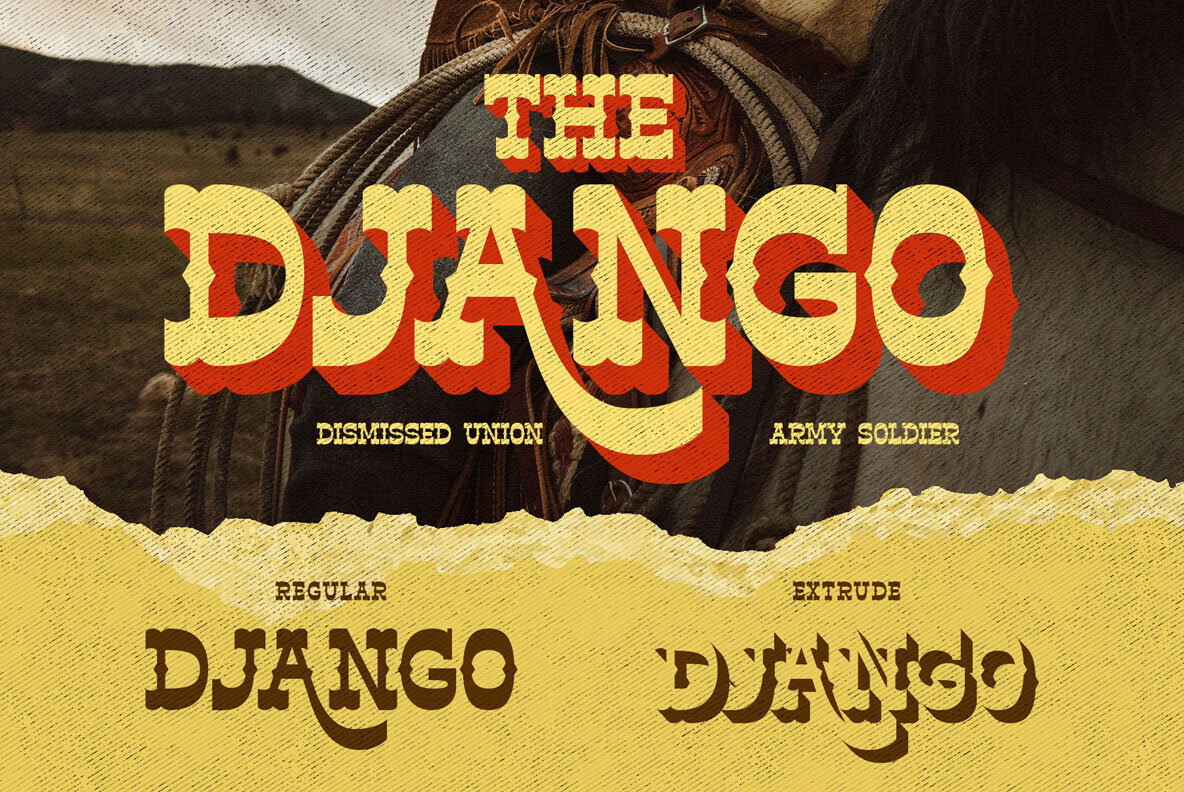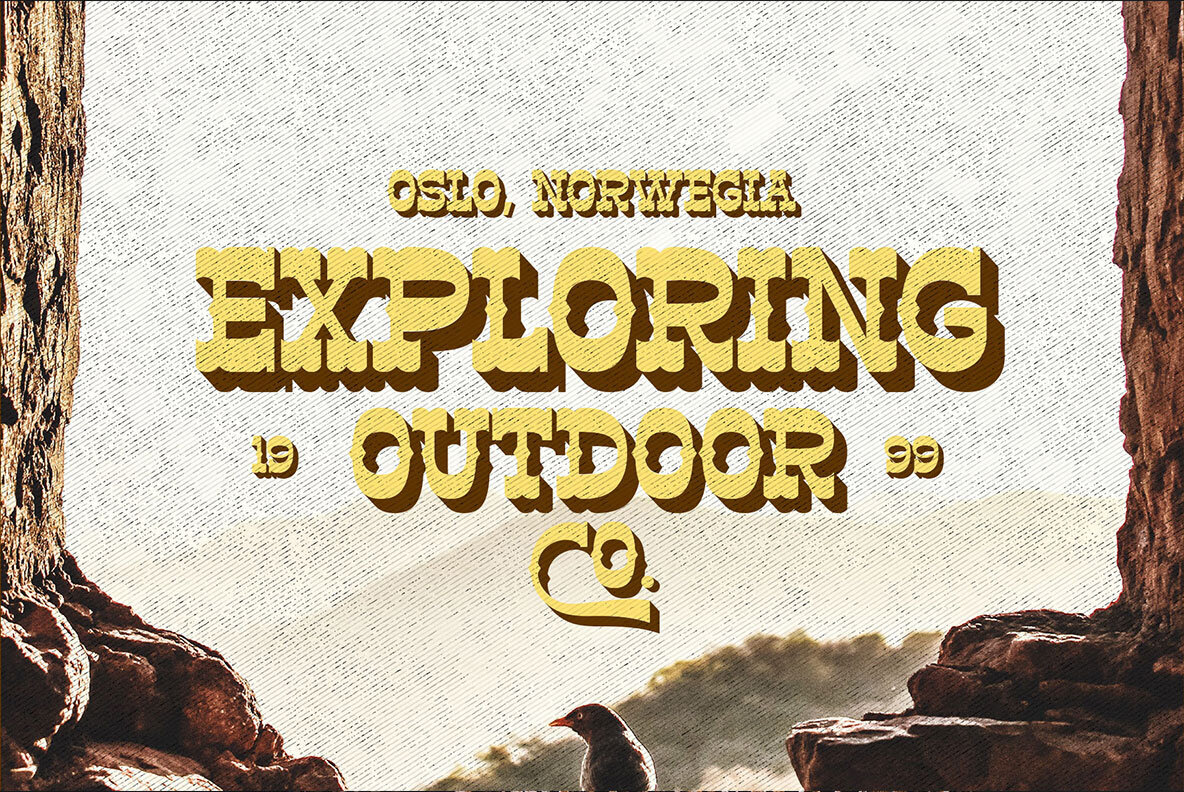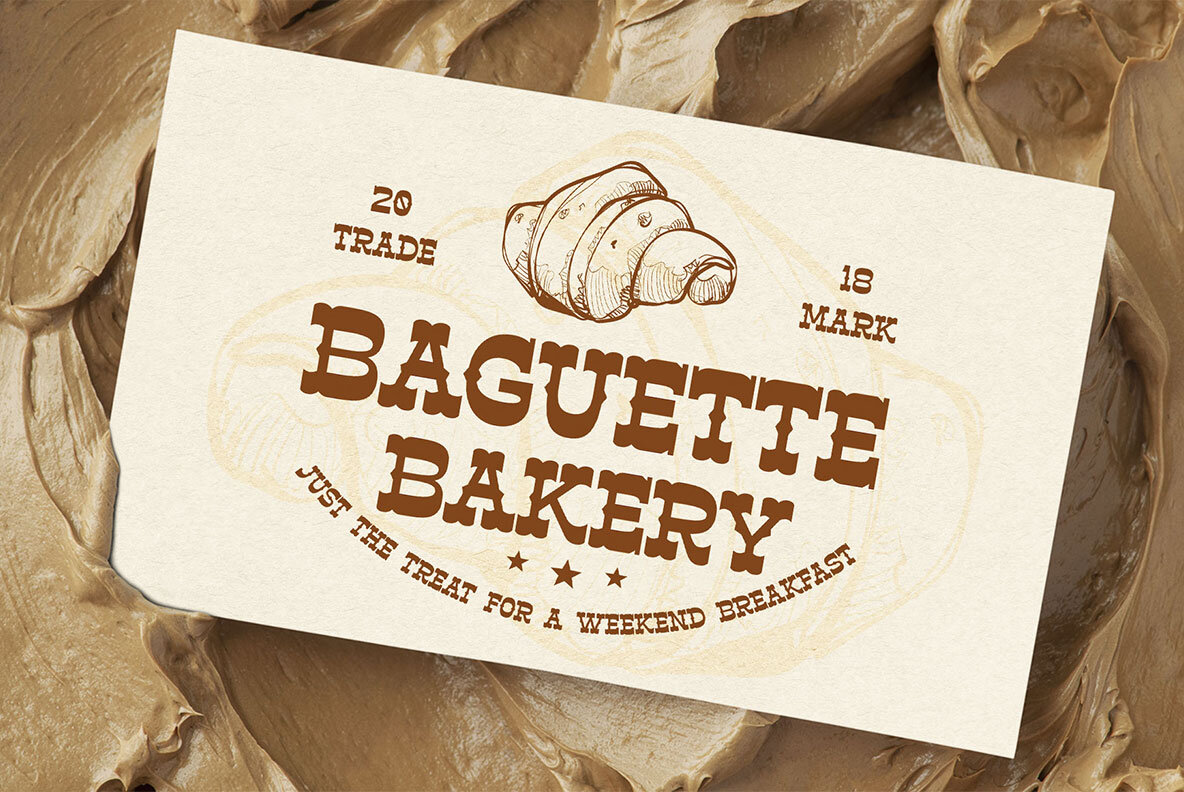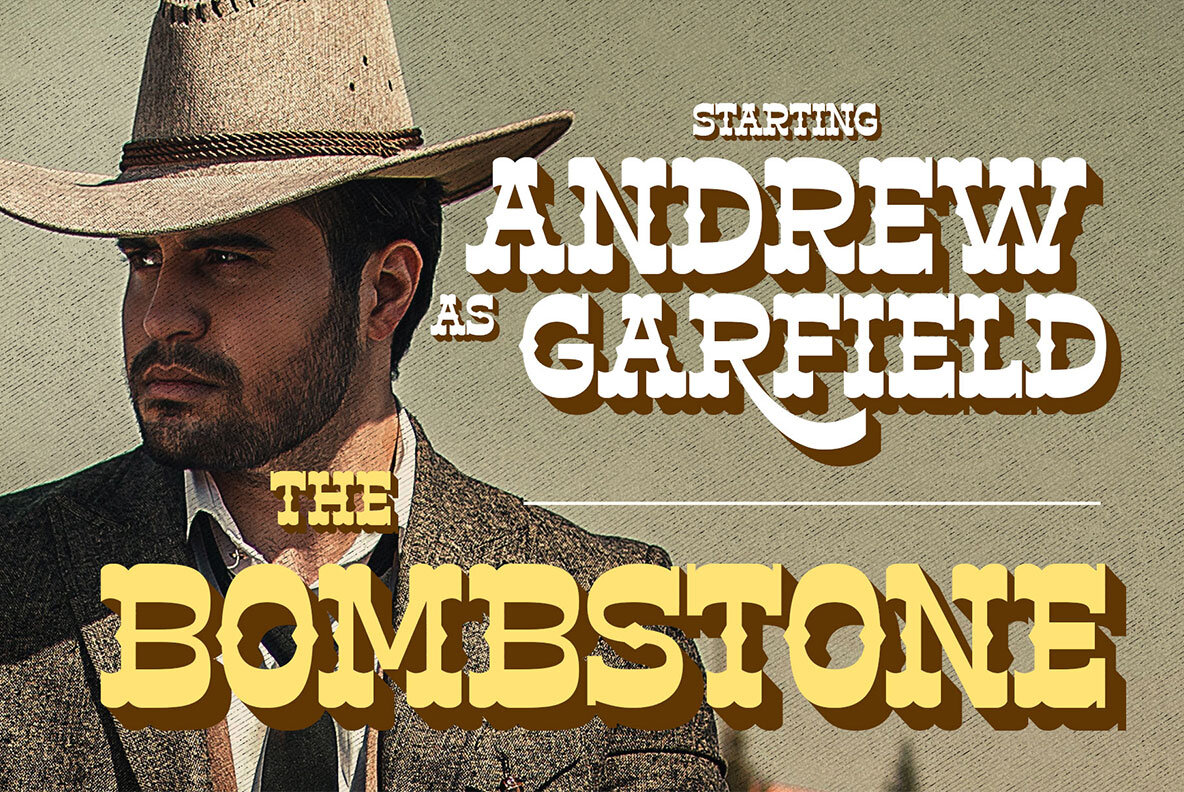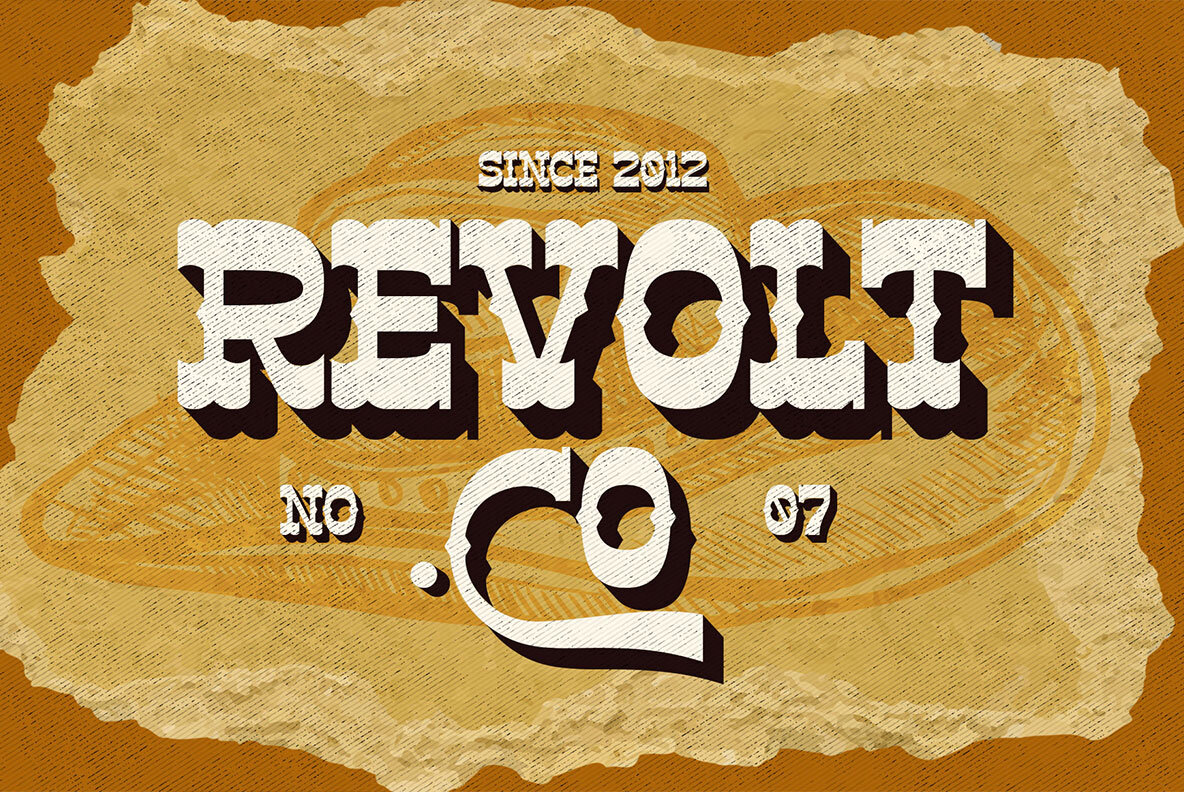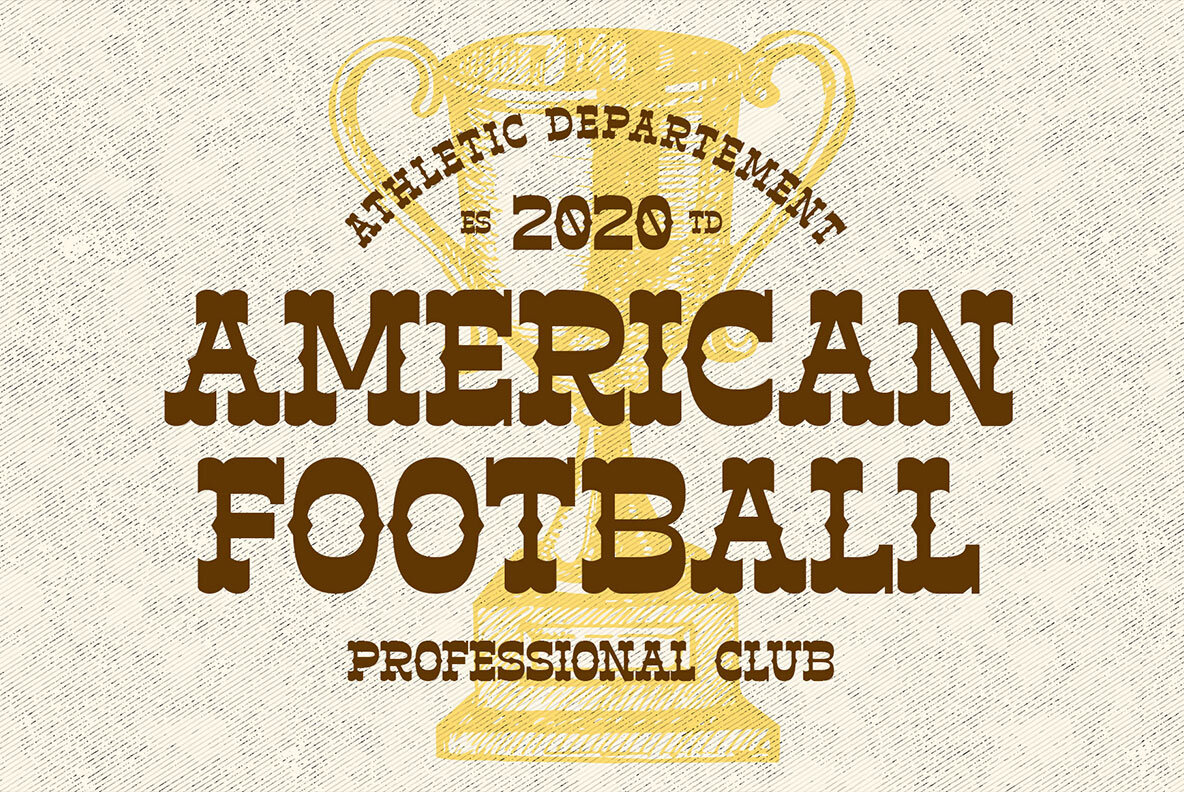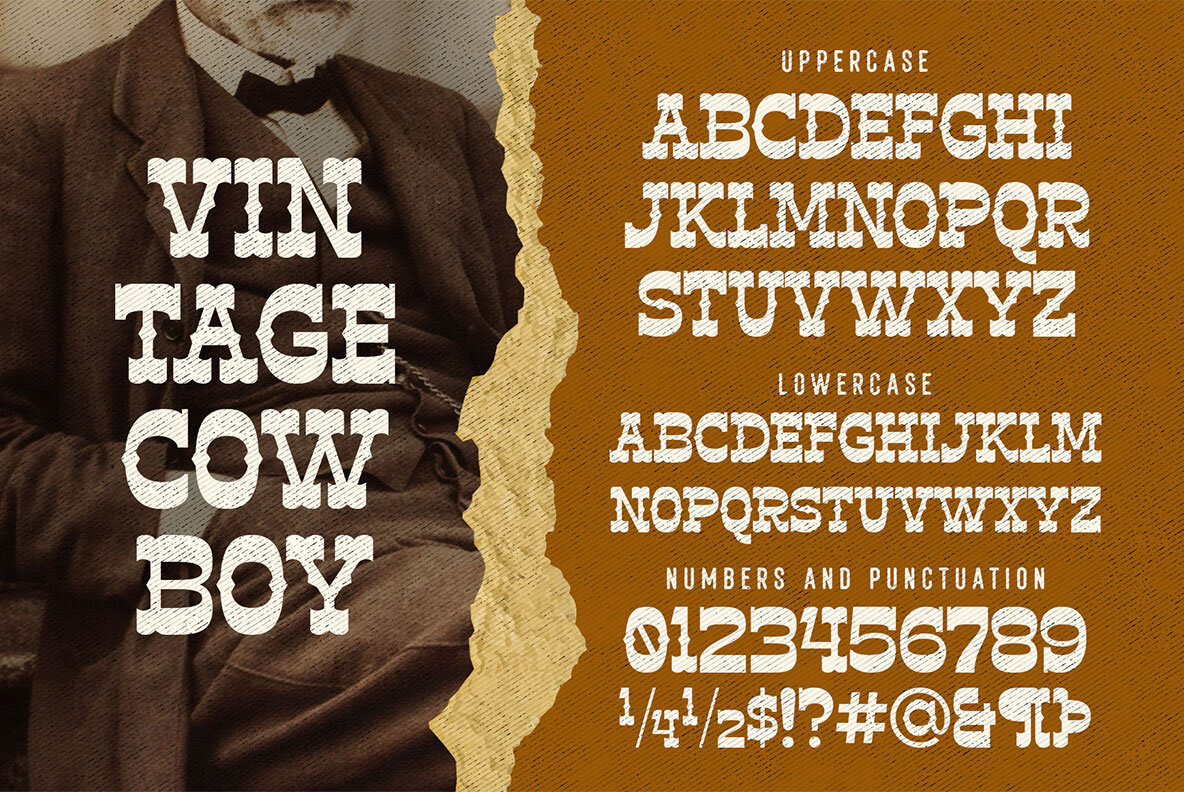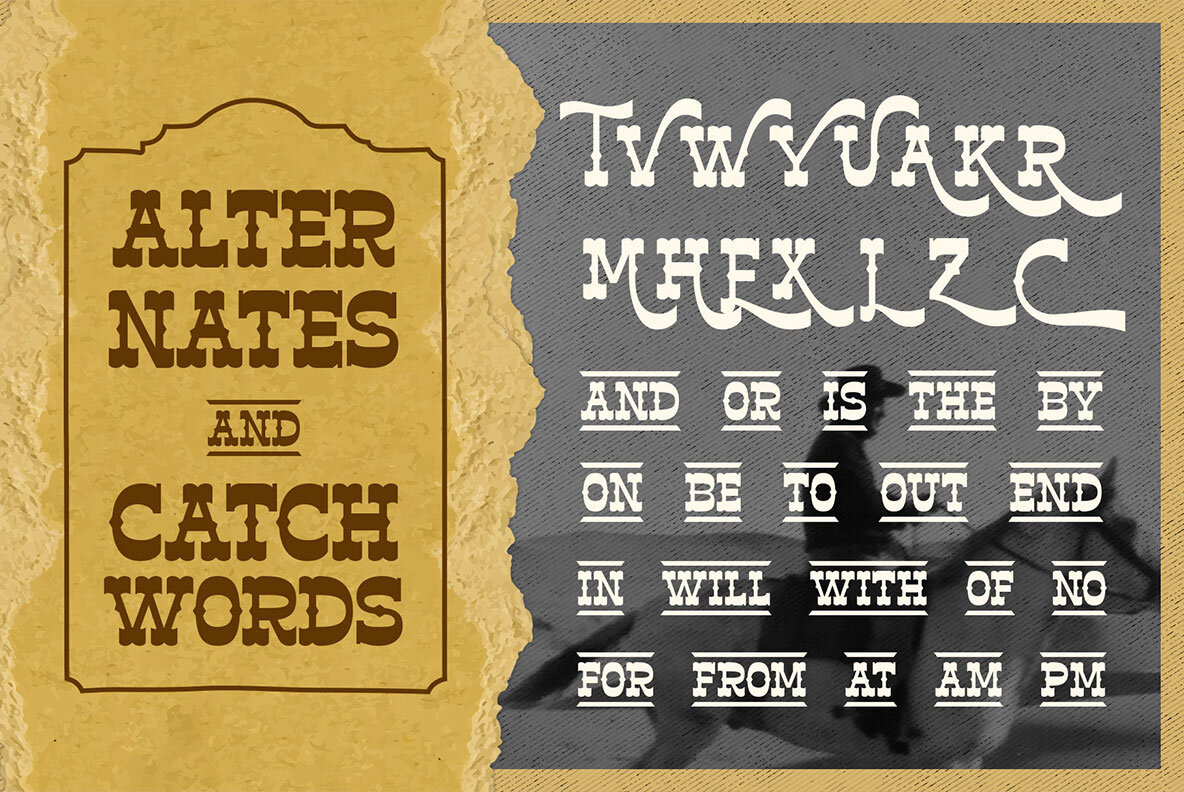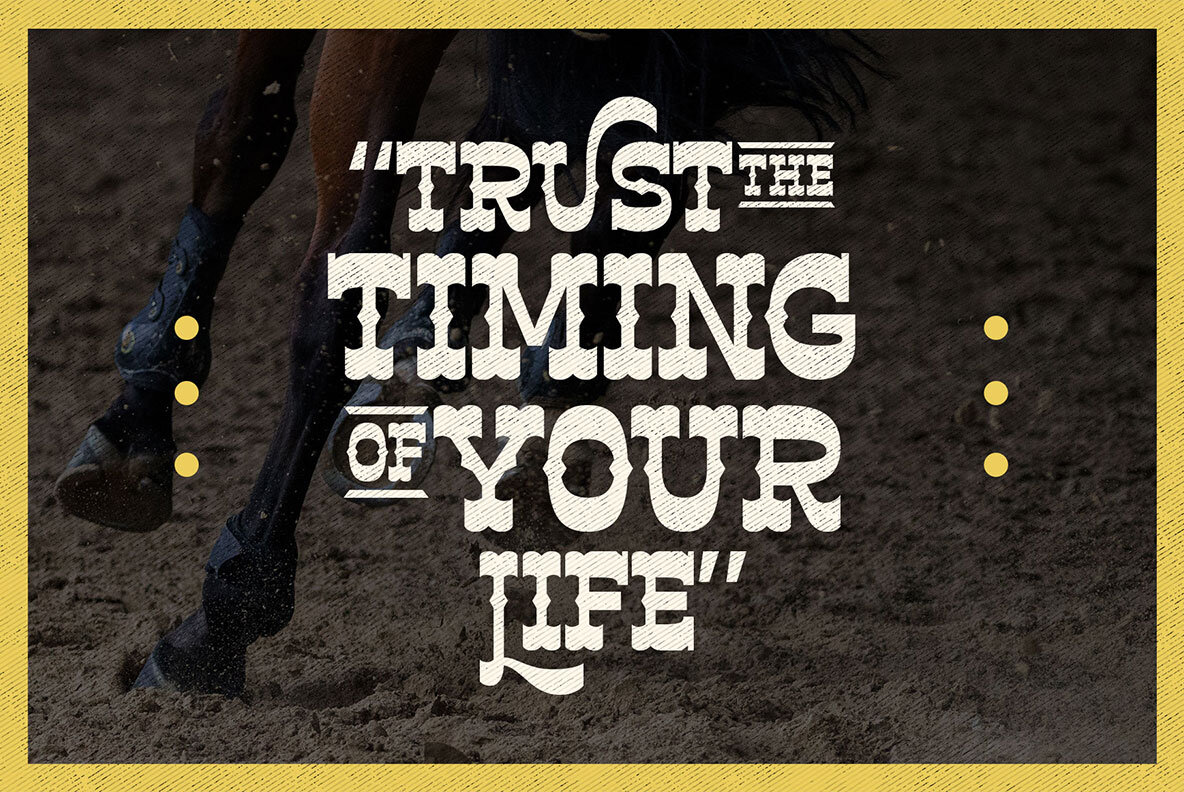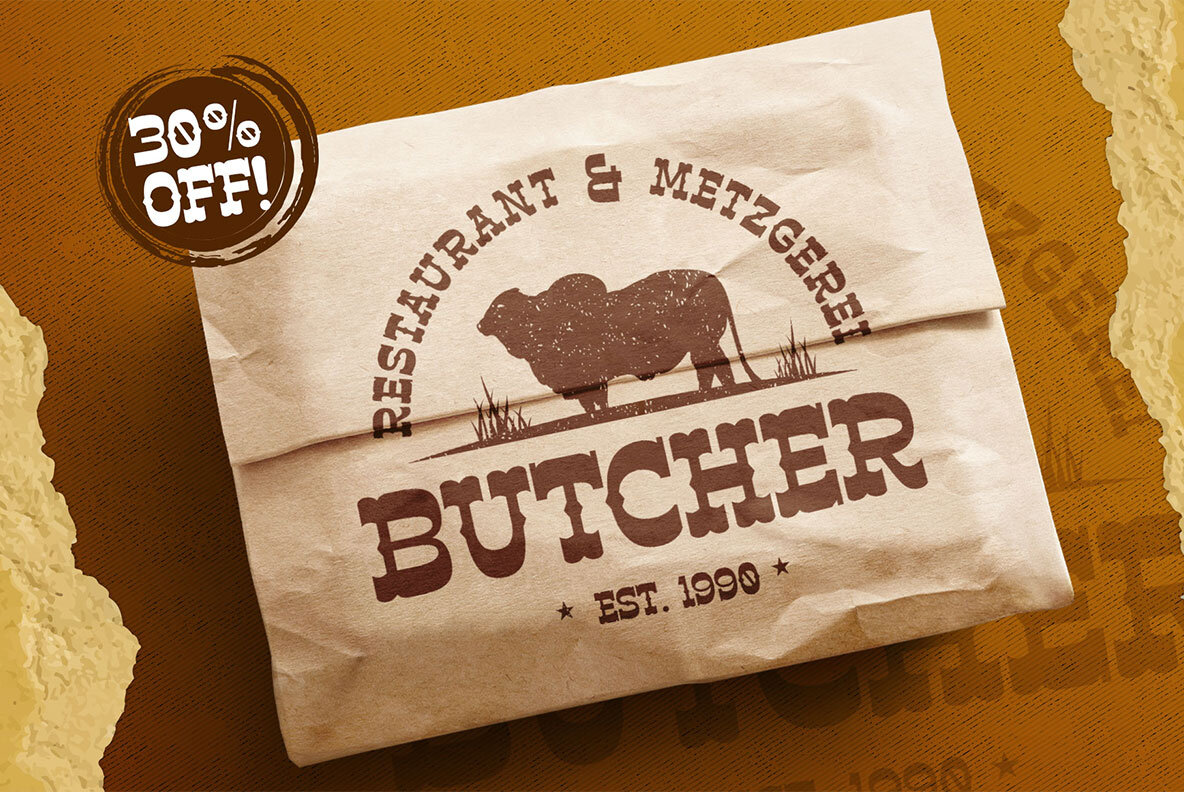
Horse Belonk Font
Introducing "Horse Belonk" a western style font. Designed well and inspired by cowboy, rodeo, texas, and vintage designs. This font is based on serif form and reversed contrast, featuring strong looks with the spurs in the middle.
Horse Belonk is a display font with an additional Extrude style that you can apply to get a 3-Dimensional typographic design. It's bold, brave, and elegant to use on title or headline, poster, flyer, stickers, vintage logos, signboards, packaging, and more!
- Uppercase
- Smallcaps
- Numbers & punctuation
- Stylistic alternates
- Catchwords : And, Or, Is, The, By, On, Be, To, Out, End, In, Will, With, Of, No, For, From, At, Am, Pm.